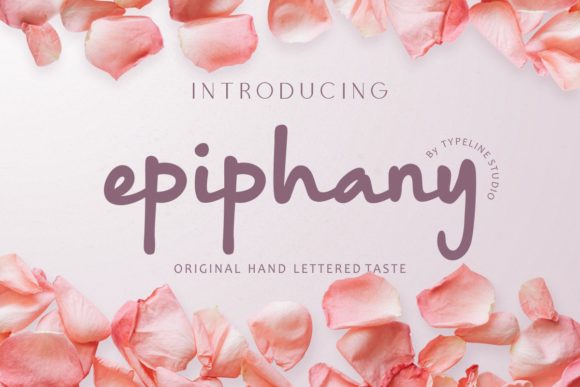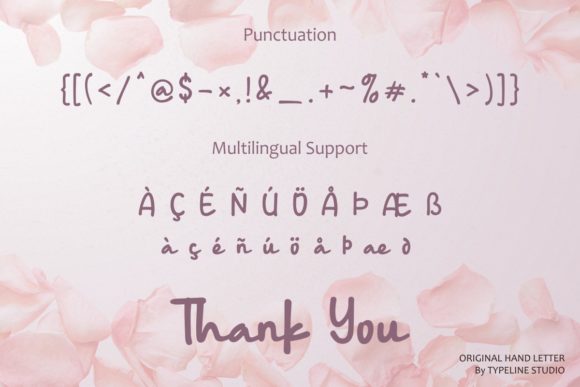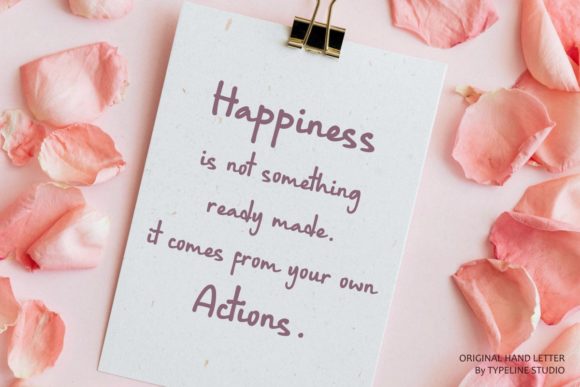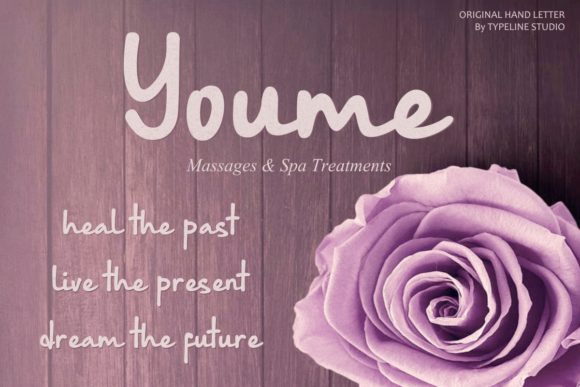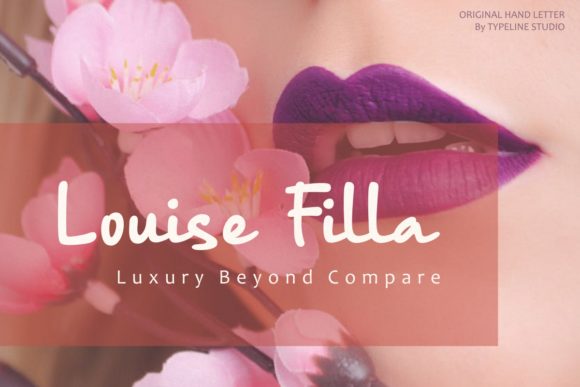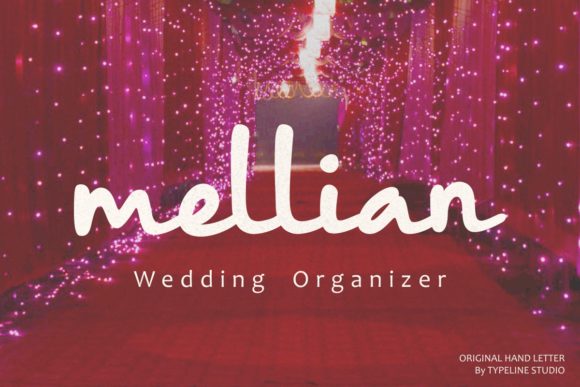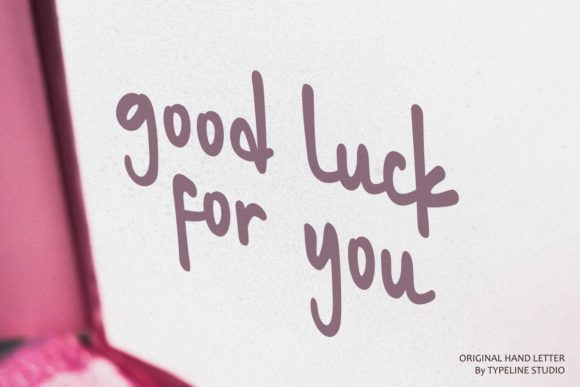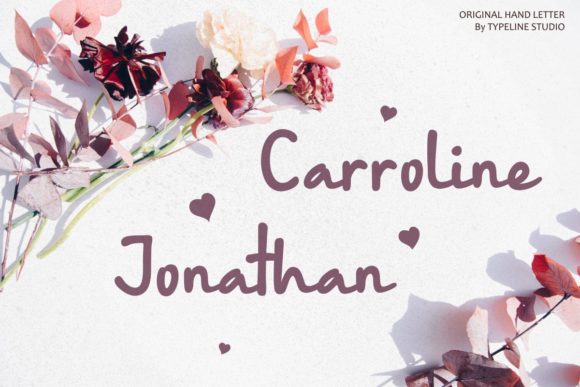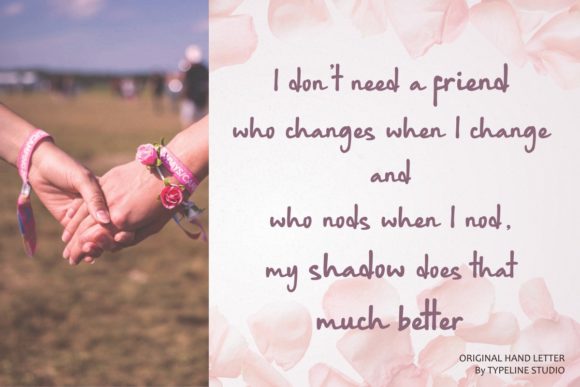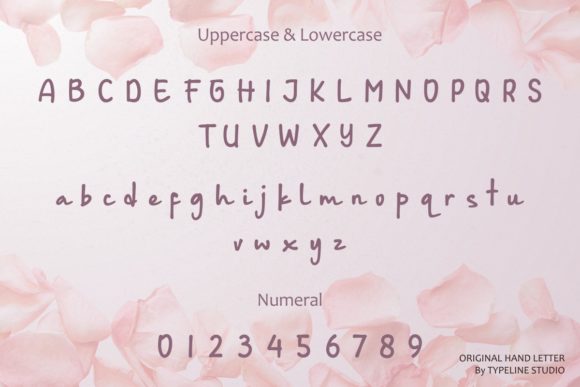
Epiphany Font
About Epiphany Font
Epiphany is a delicate and sweet paint brushed handwritten font. Its distinct and well rounded letters make this font a masterpiece. Add it confidently to your projects, and you won’t be disappointed.